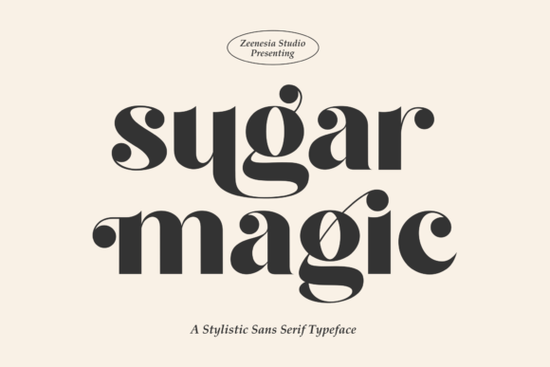
Sugar Magic Font is a versatile and stylish sans-serif typeface that brings a touch of modern elegance to any design project. Whether you're working on branding, packaging, or editorial layouts, this font offers a clean and professional look that stands out. Its balanced structure and subtle curves make it easy to read while maintaining a distinctive personality. For designers looking for a reliable and adaptable font, Sugar Magic Font is a great choice.
When choosing a font, it's important to consider how it fits into your overall design strategy. Sugar Magic Font works well in both digital and print formats, making it suitable for a wide range of applications. From logos to headlines, this font adds a refined touch without overwhelming the viewer. If you're exploring other options, you might also want to check out Japandi Font, which combines minimalist and traditional styles, or Designer Font, ideal for eye-catching displays.
Why Sugar Magic Font Works Well in Different Projects
Sugar Magic Font is designed with flexibility in mind. Its neutral yet sophisticated appearance makes it a good fit for both casual and formal projects. For example, small businesses can use it for website headers, social media graphics, or product labels. Print-on-demand sellers might find it useful for creating custom t-shirts, mugs, or posters. Its readability at various sizes ensures that it remains effective whether used in large headlines or smaller text blocks.
One of the key strengths of Sugar Magic Font is its ability to complement other design elements without competing with them. This makes it an excellent choice for designers who want to maintain a cohesive visual identity across different platforms. Whether you're working on a brochure, a logo, or a digital ad, this font provides a polished and professional finish.
How to Use Sugar Magic Font in Your Designs
Using Sugar Magic Font in your projects is straightforward. Start by selecting the right size and weight for your specific needs. For headings and titles, a bolder version of the font can add emphasis and visual interest. For body text, a lighter variant may be more appropriate to ensure clarity and readability. Experimenting with spacing and alignment can further enhance the overall look of your design.
Consider pairing Sugar Magic Font with other fonts to create contrast and hierarchy. For instance, combining it with a more traditional serif font can add depth and variety to your layout. Alternatively, using it alongside a minimalist sans-serif can create a modern and balanced aesthetic. Always test your designs on different devices and backgrounds to ensure they look their best in all contexts.
When selecting a font, think about the message you want to convey. A font like Sugar Magic can communicate sophistication and clarity, while others might emphasize creativity or tradition. Take the time to explore different options and see which ones align best with your design goals.